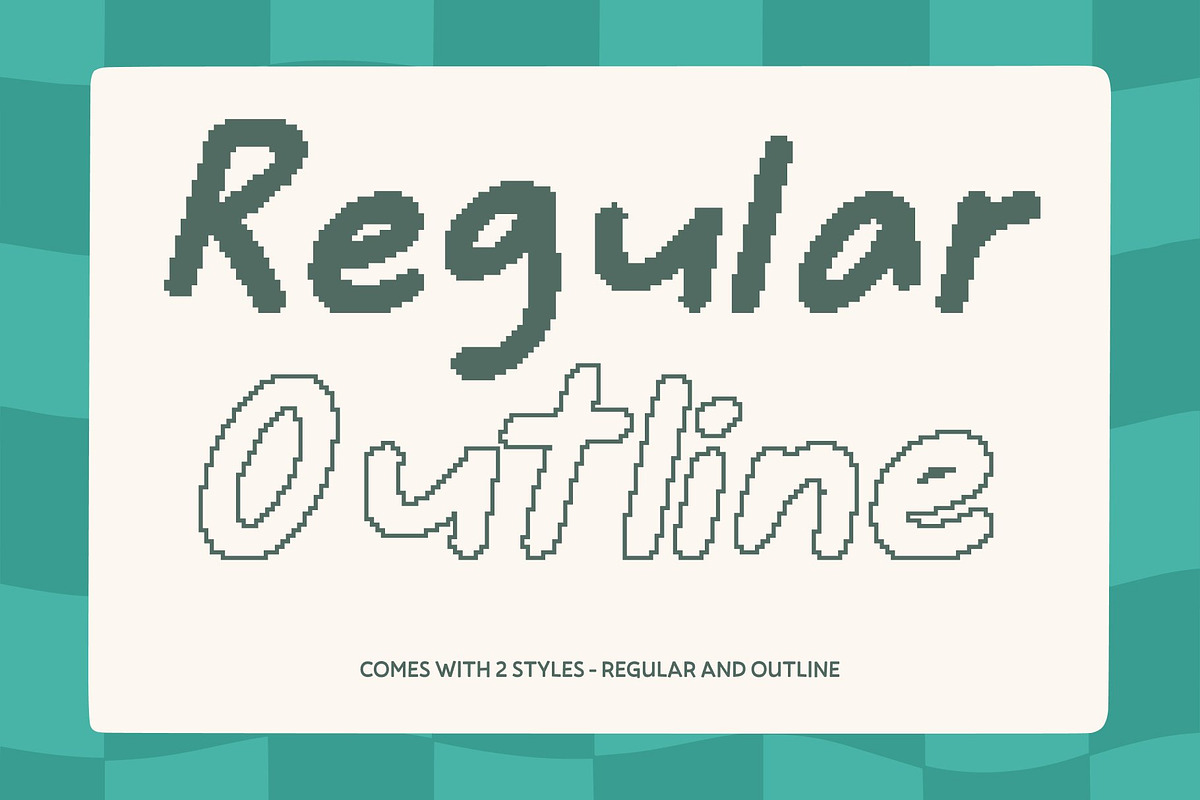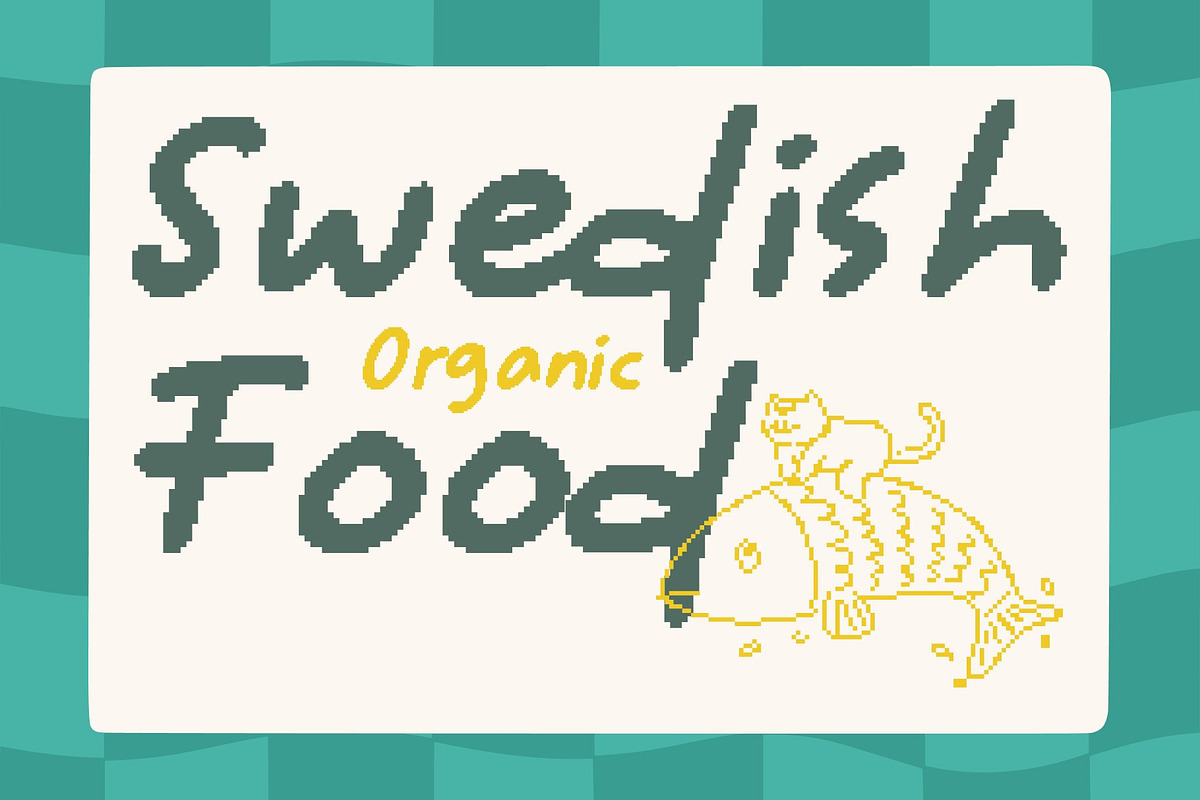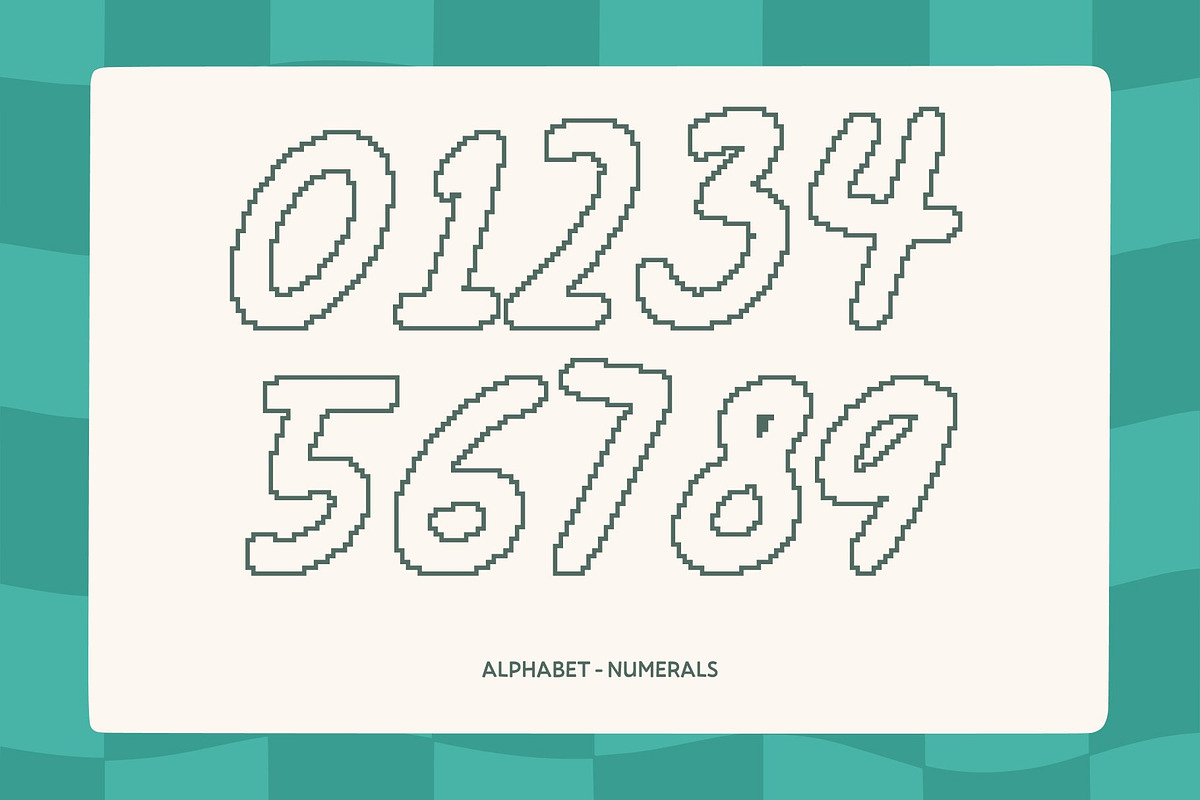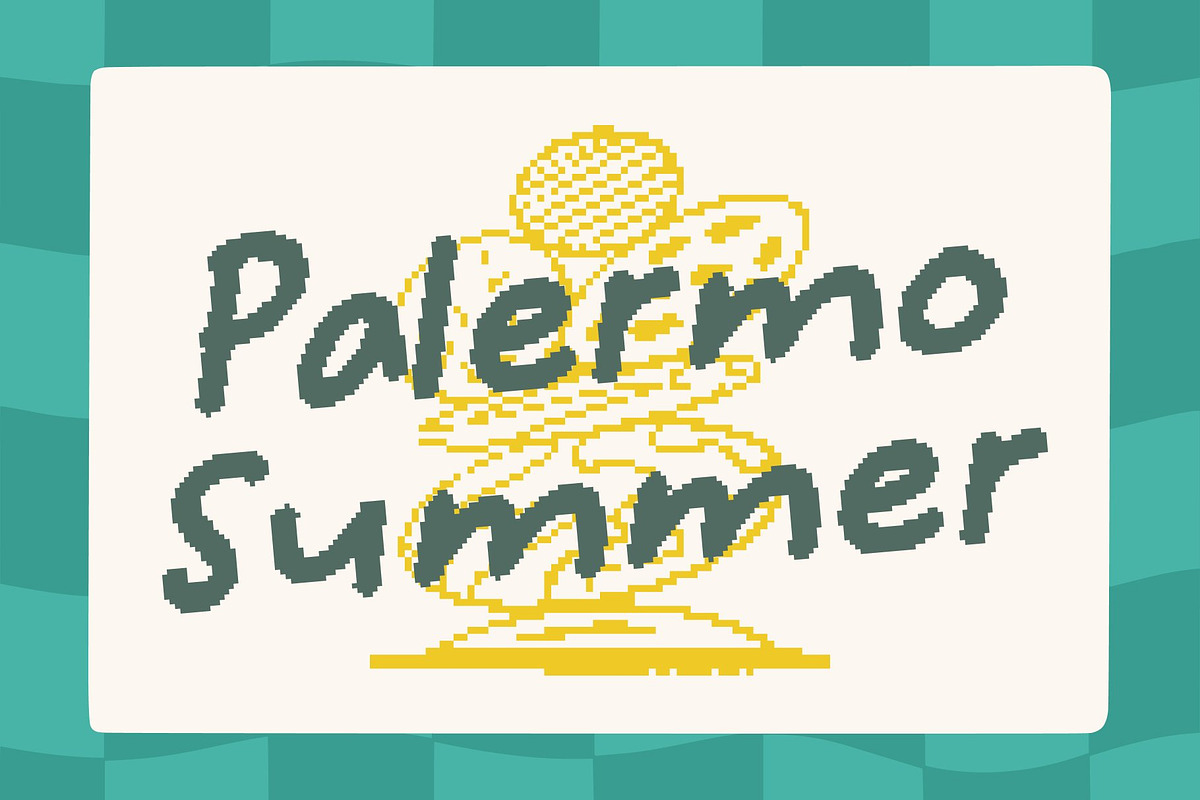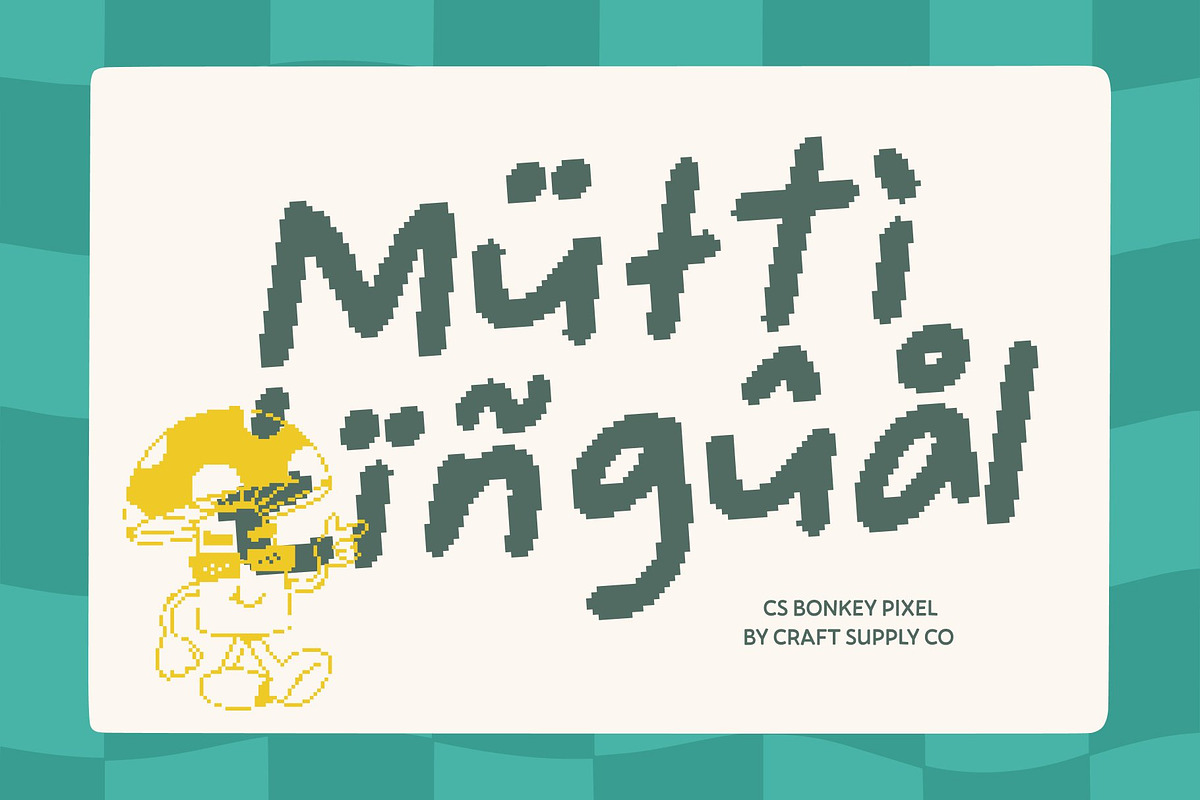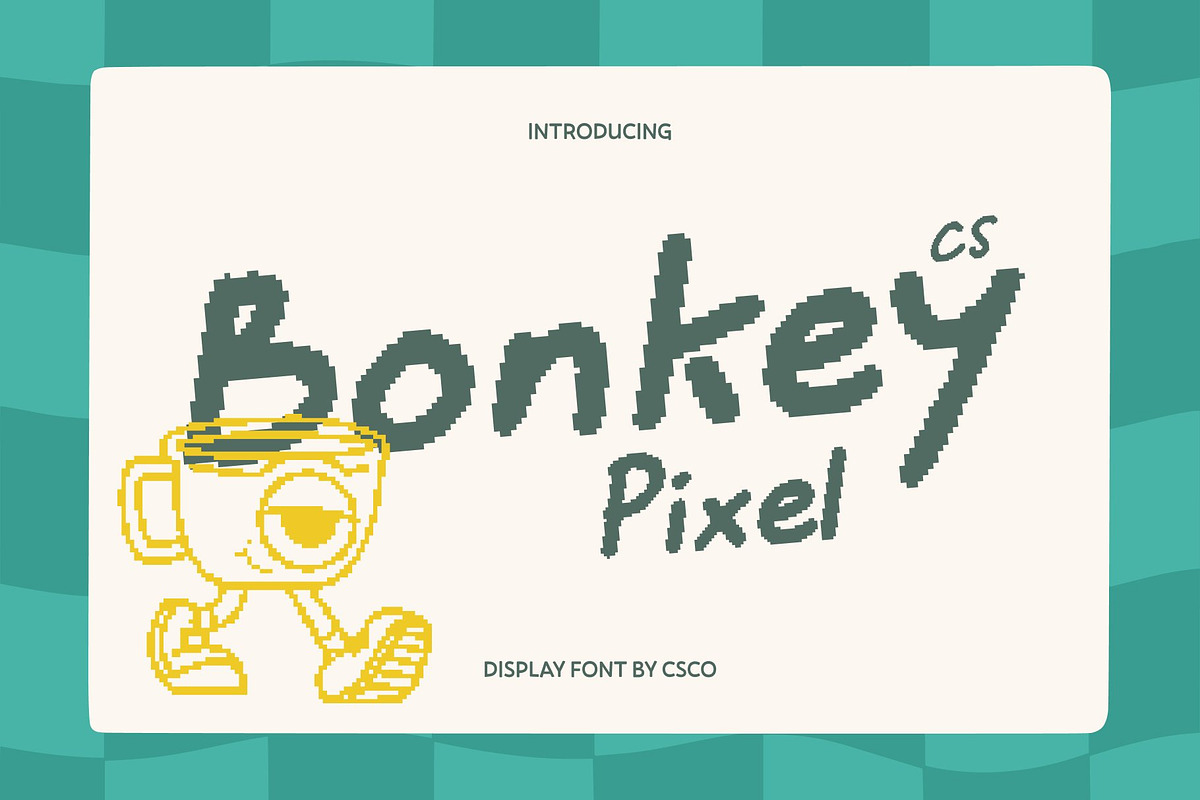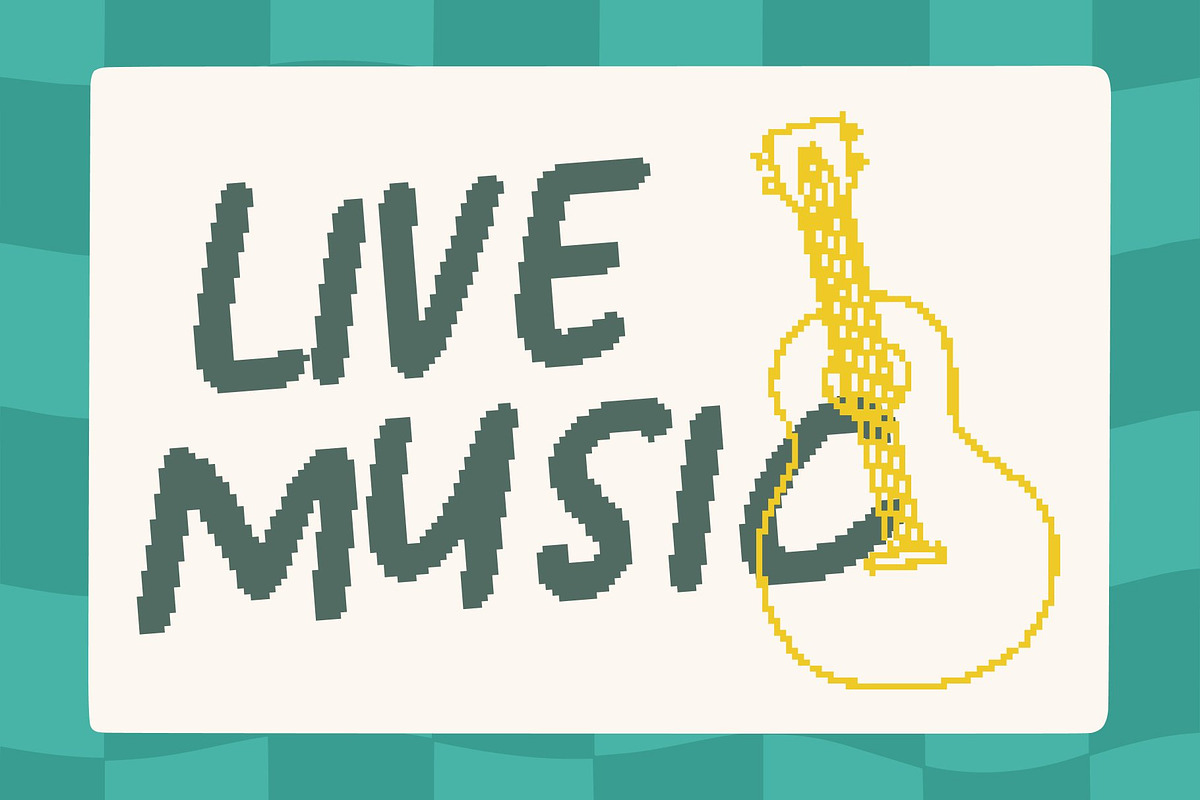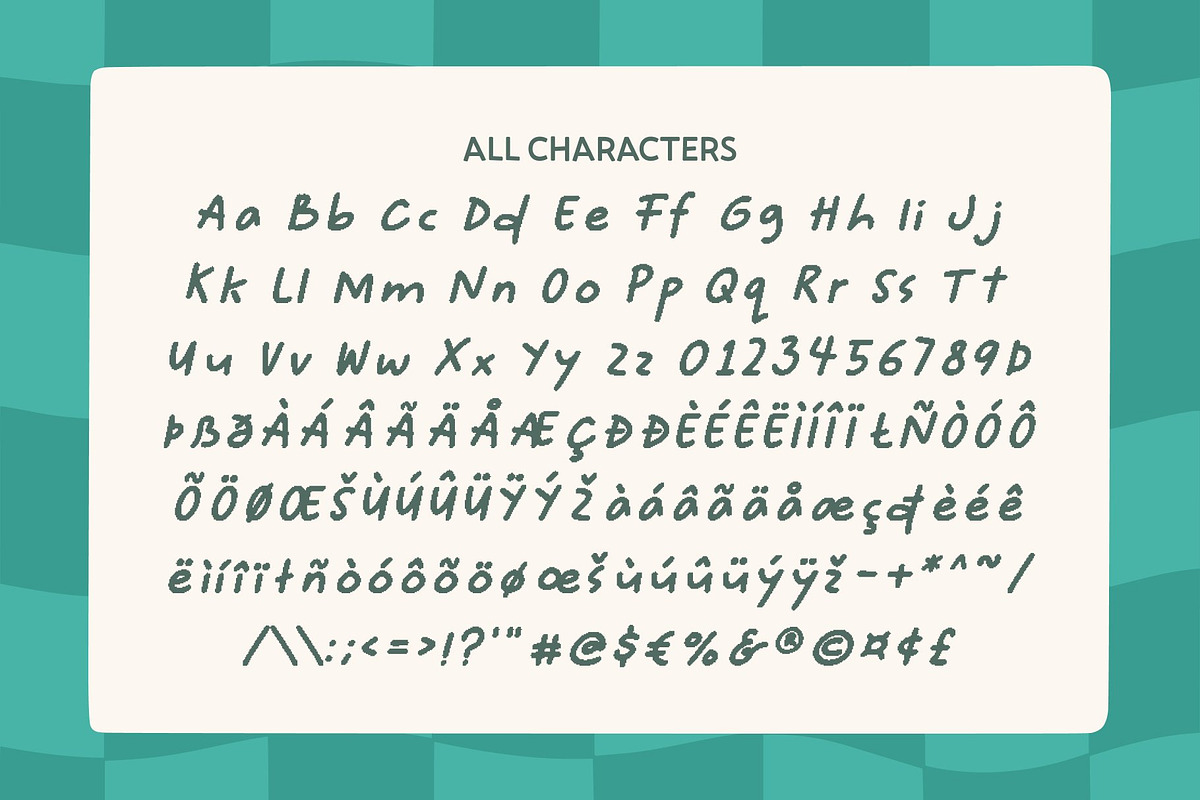
CS Bonkey Pixel
CS Bonkey Pixel – Cute Handwritten Fun with Rounded Cheerfulness
Playful Handwritten Style with Pixel Charm This is a cute handwritten font that radiates joy and playful energy, enhanced with a subtle pixel-style finish. Its friendly strokes and rounded sans serif influence capture the warmth of casual handwriting while adding a nostalgic digital touch. The result is a font that feels cheerful, approachable, and perfectly suited for fun modern or retro-inspired designs.
Rounded Shapes for Soft, Friendly Visuals The rounded letterforms create a gentle and lovable appearance that feels welcoming at first glance. These smooth, pixel-aligned curves improve readability while reinforcing a childlike, joyful personality. The balanced shapes ensure your designs stay bright and engaging, especially in playful, family-friendly, or youthful digital contexts.
Expressive Strokes with Lively Pixel Energy This font features expressive handwritten strokes that bring movement and creativity to every word. The natural flow combined with pixel precision adds rhythm and excitement, making text feel alive and energetic. This expressive quality helps designs communicate happiness, friendliness, and imagination with ease.
Perfect for Kids’ Designs, Invitations, and Fun Branding Ideal for kids’ projects, party invitations, playful branding, packaging, crafts, and cheerful social media content, this font delivers instant charm. Whether used for children’s books, cute stickers, colorful logos, or fun digital layouts, this font creates a joyful atmosphere with a nostalgic pixel twist that feels both modern and delightfully fun.